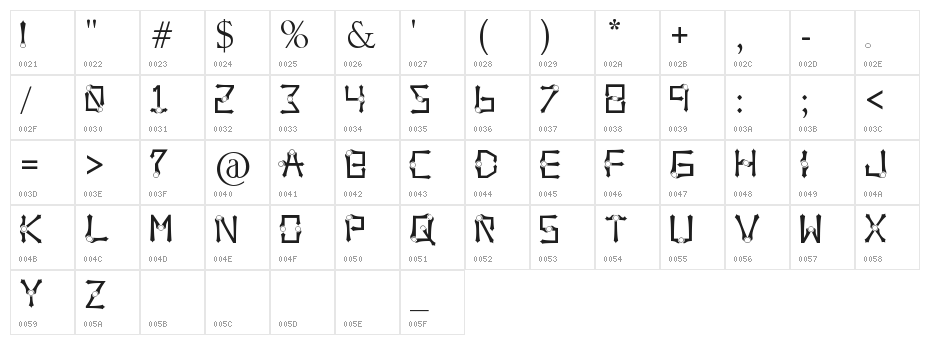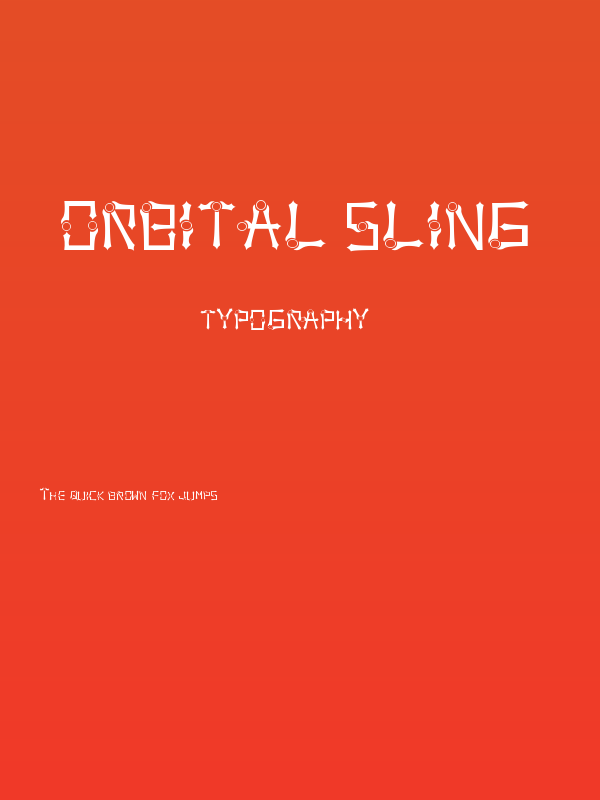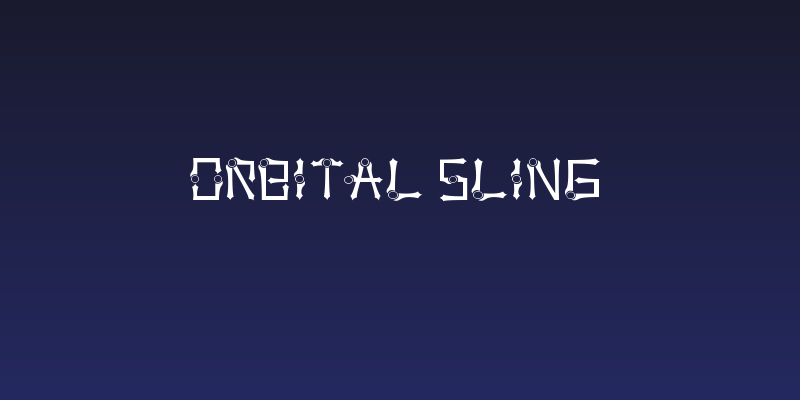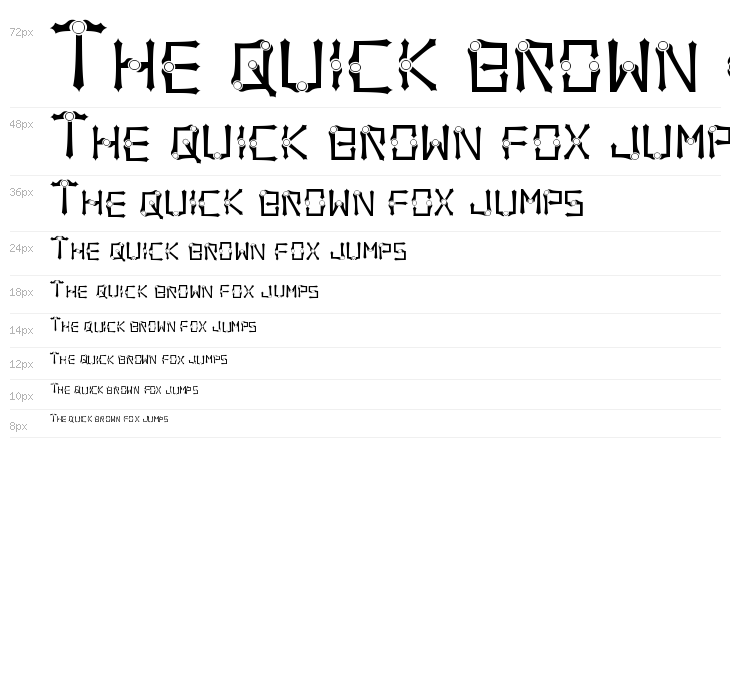
Orbital Sling Font
Orbital Sling Description
This font features a unique and futuristic design, characterized by its angular and geometric shapes. Each letter is adorned with circular nodes that give it a mechanical and orbital appearance, reminiscent of space technology and modern machinery. The sharp edges and pointed terminals add a dynamic and edgy feel, making it stand out as a display typeface. The numbers and special characters follow the same design principles, ensuring consistency across all glyphs. This font is ideal for projects that require a bold and innovative look, capturing attention with its distinct style.
Overall StyleFuturistic
Proposed ProjectsPerfect for sci-fi movie posters, tech company logos, video game titles, and futuristic branding.